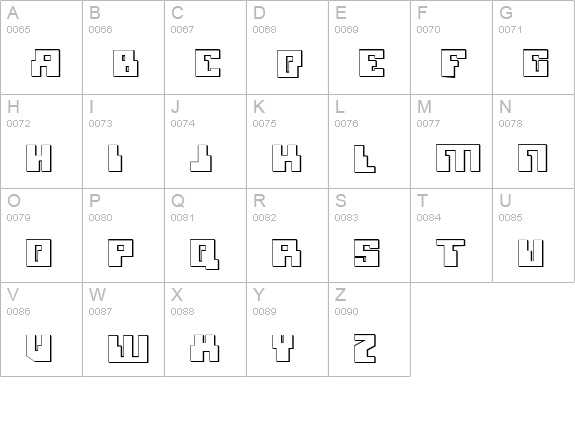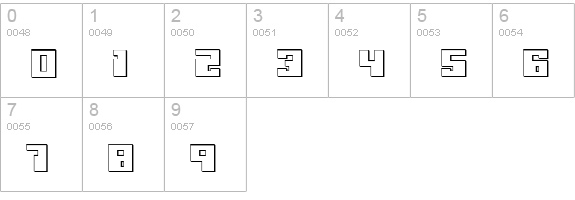
Introducing the captivating Micronian 3D font, a stunning display typeface that effortlessly combines futuristic elements with a touch of modern elegance. This mesmerizing font features intricate three-dimensional detailing that adds depth and dimension to any design project. Each letter exudes a sense of sophistication and creativity, making it perfect for eye-catching headlines, posters, and branding materials. The Micronian 3D font is not only visually striking but also highly versatile, suitable for a wide range of applications from digital artwork to print media. Whether you're working on a sci-fi themed project or simply want to add a unique flair to your designs, this font is sure to make a bold statement. Best of all, the Micronian 3D font is completely free to download at FontsMarket.com. This means you can unleash your creativity without any cost barriers, making it an ideal choice for designers, artists, and creatives of all kinds. Don't miss out on the opportunity to elevate your designs with this exceptional font – download Micronian 3D today and take your projects to the next level!